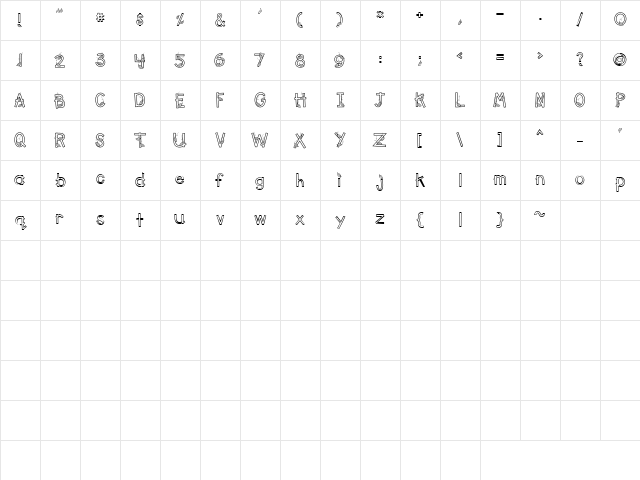
Complete LD Falling Leaves Regular glyph index. Displaying only characters natively supported by LD Falling Leaves Regular font.
LD Falling Leaves is a composed and adaptable typeface that performs quietly and consistently across a wide range of design contexts.